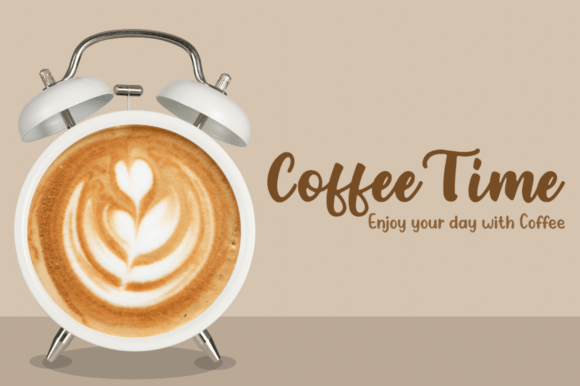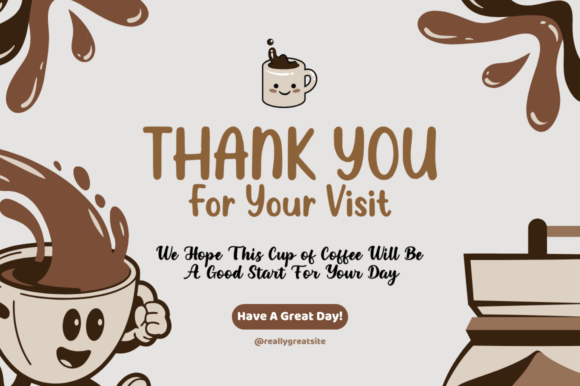
Introduction to Ornatique Font
Ornatique Font Duo combines two perfectly balanced styles: Ornatique Regular and Ornatique Script.
The Regular version offers a bold and playful look, while the Script version adds a touch of elegance and flow Together, they create a versatile pairing for logos, invitations, posters, branding projects, and quotes.
Key Features of Ornatique Font
Why Choose Ornatique Font?
Ornatique Font offers exceptional quality and versatility, making it a valuable addition to your design toolkit. Whether you’re creating for personal projects or commercial use, Ornatique Font delivers professional results.